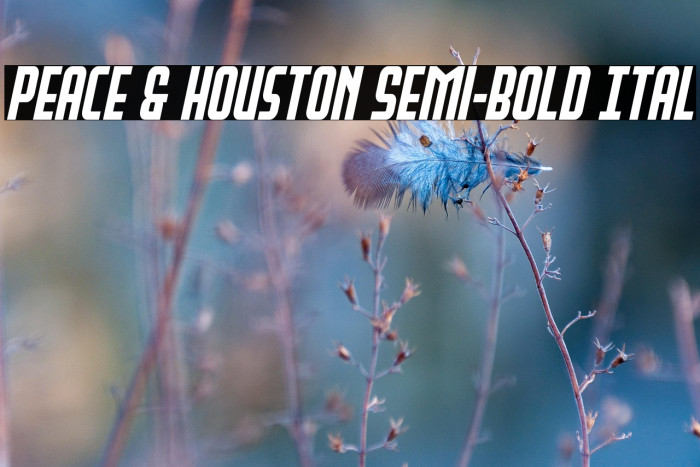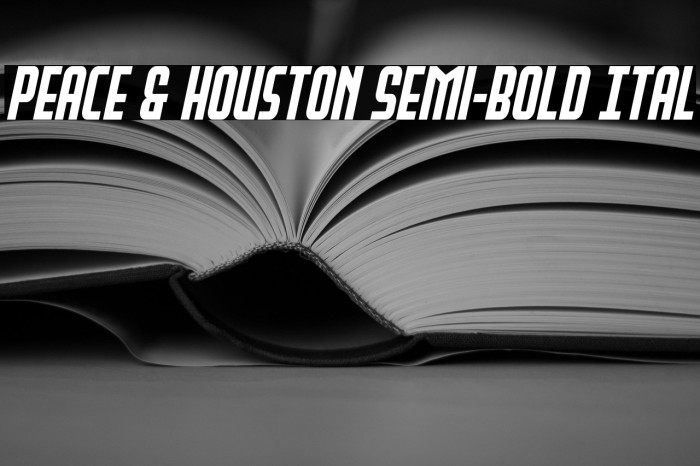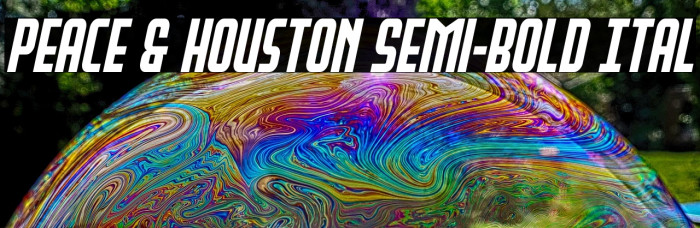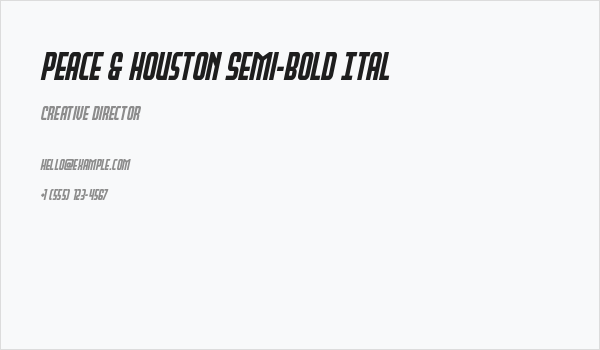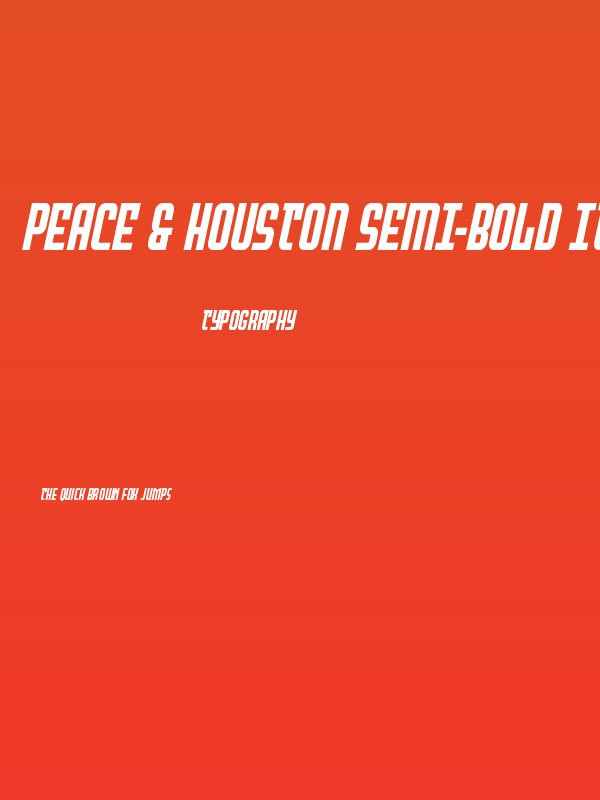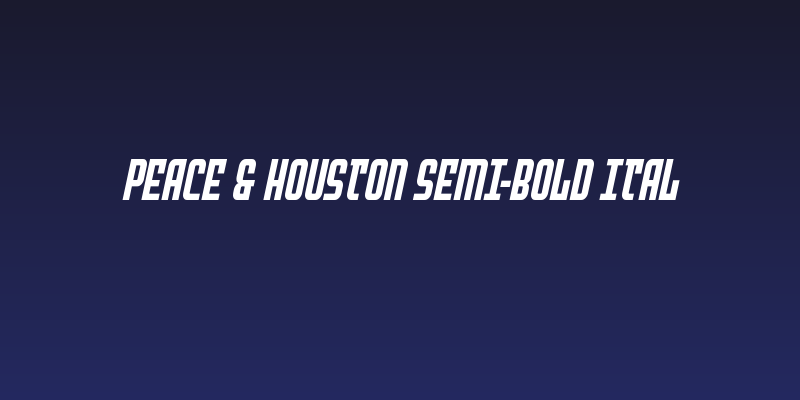
Peace & Houston Semi-Bold Ital Font
Peace & Houston Semi-Bold Ital Description
This font features a bold and dynamic style with a distinct slant, giving it an italicized appearance. The characters are robust and slightly condensed, providing a strong visual impact. The uppercase letters are tall and commanding, while the lowercase letters maintain a consistent style with a slightly smaller stature. The numerals are clear and bold, matching the overall aesthetic. Special characters are designed with the same boldness, ensuring consistency across all elements. The font's design is modern and energetic, making it suitable for attention-grabbing headlines and impactful designs.
| Proposed Projects | Ideal for sports branding, dynamic posters, and modern advertising campaigns. |